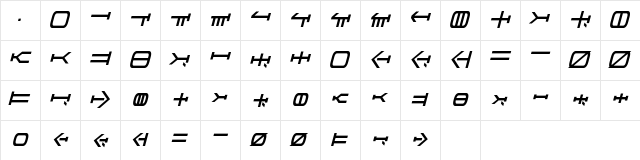
Graalen Italic
| Foundry | Neale Davidson |
| Designer | Neale Davidson |
Design Context for Graalen Typeface
Graalen is a composed and adaptable typeface that performs quietly and consistently across a wide range of design contexts. The dynamic lean of this cut emphasises speed and emphasis in any layout.
Pro Tip: Use Graalen for emphasis, pull quotes, and subheadings where its slanted energy can add rhythm to the layout.